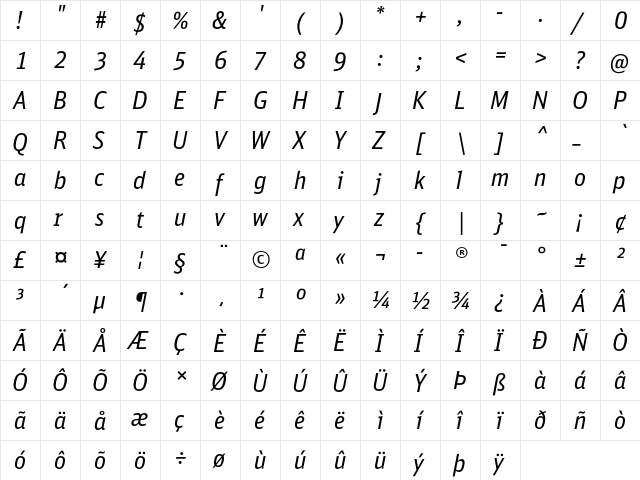
DB Sans Cond Regular Italic Font Preview
Design Context for DB Sans Cond Typeface
DB Sans Cond is a composed and adaptable typeface that performs quietly and consistently across a wide range of design contexts. Its italic angle brings a sense of urgency and motion to the letterforms. Its narrow stance lets it pack a punch even in space-constrained designs.
Pro Tip: Try DB Sans Cond for annotation and caption copy alongside an upright companion — the contrast in angle creates a dynamic but ordered typographic system.